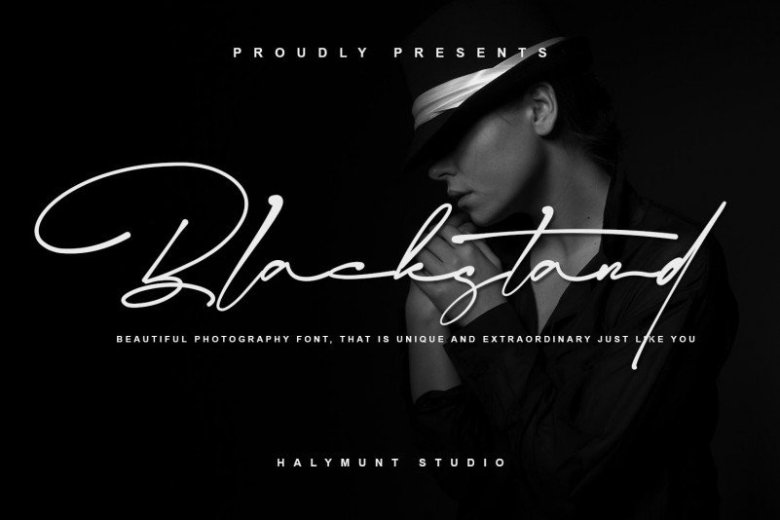
Blackstand Font
Blackstand Script Font a realistic handwritten font that will give your design projects the natural handwritten style and hand-crafted aesthetic touch. This is perfect for branding projects, logo, wedding designs, social media posts, advertisements, product packaging, product designs, label, photography, watermark, invitation, stationery, and any projects that need handwriting taste.